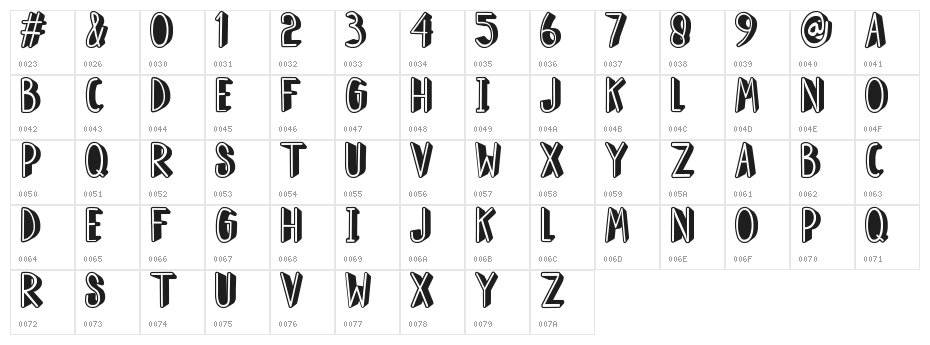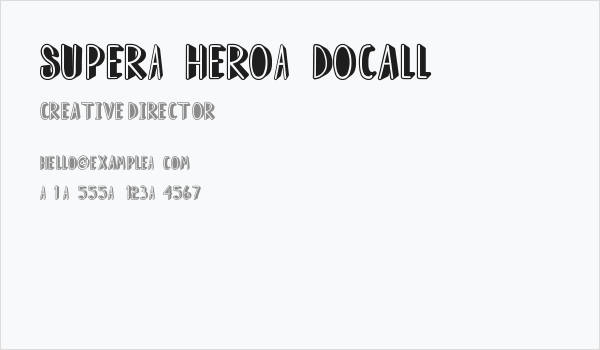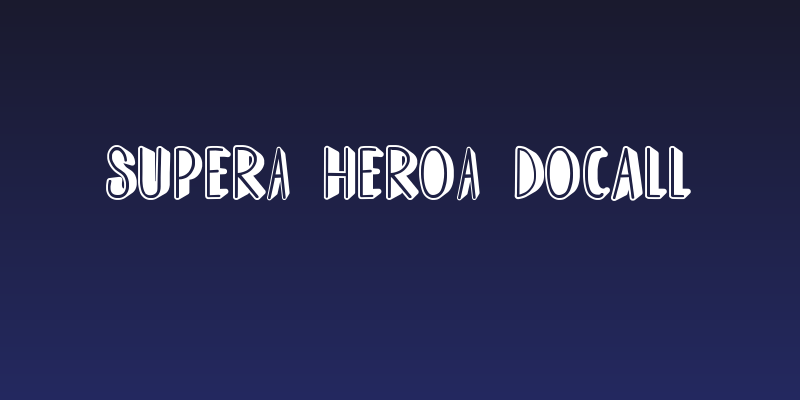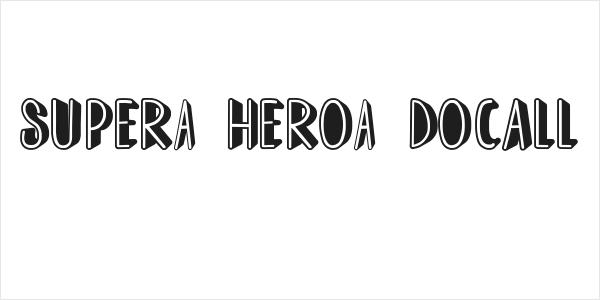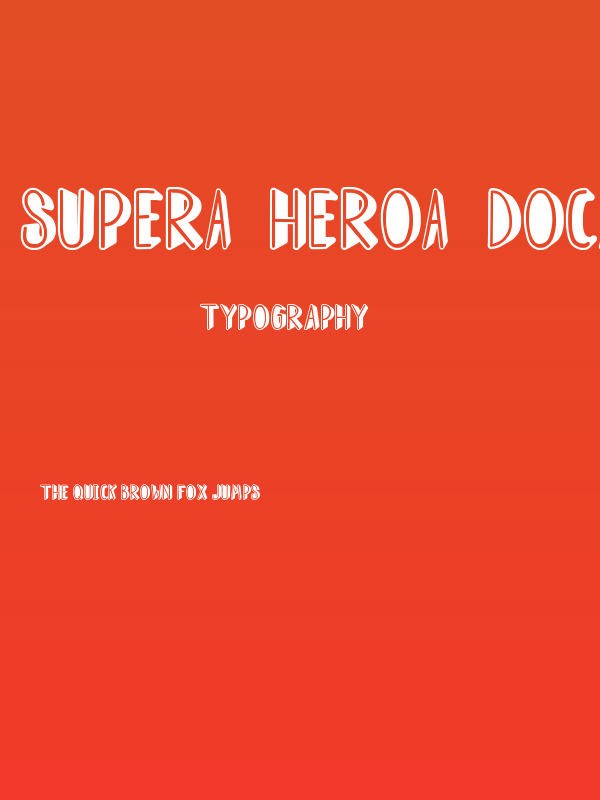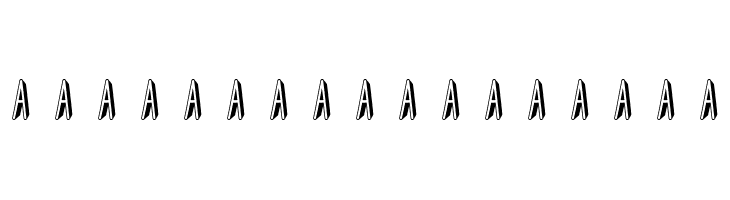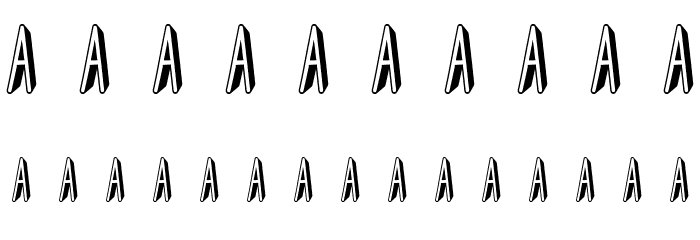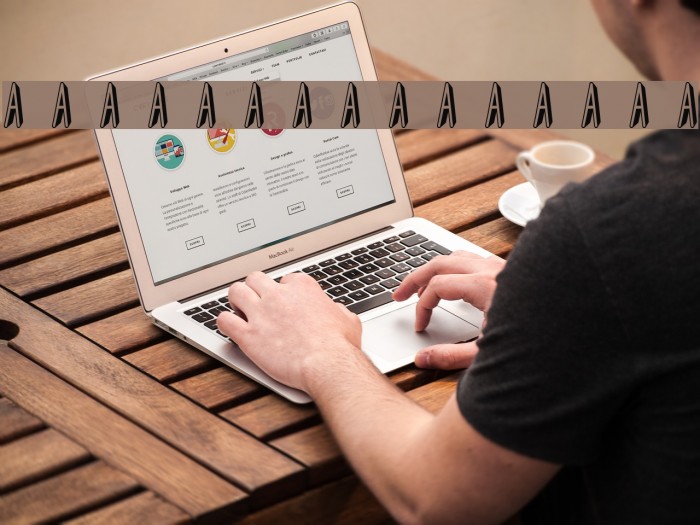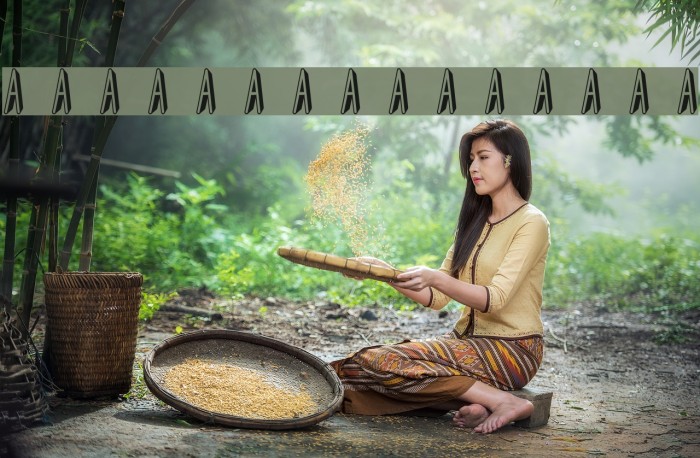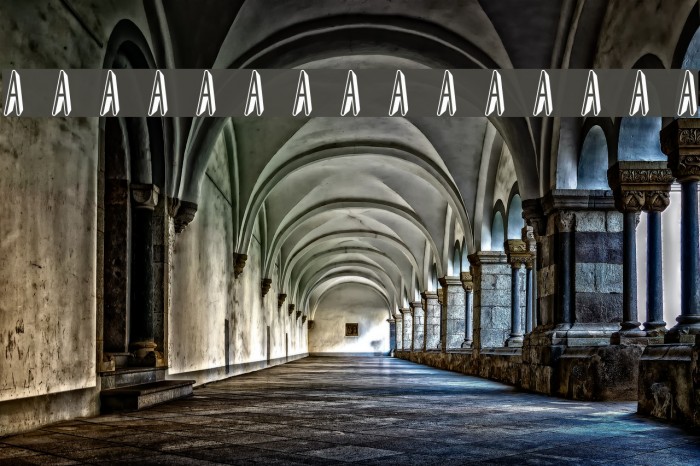
Super-Hero-Docall Font
Super-Hero-Docall Description
This font features a bold and dynamic style, characterized by a three-dimensional effect that gives each letter a sense of depth and movement. The letters are crafted with a strong, angular design, emphasizing sharp edges and a slightly italicized posture. The black shadowing adds to the dramatic appearance, making it stand out prominently against lighter backgrounds. This font is ideal for creating a powerful visual impact, suitable for titles or branding that requires a superhero-like aesthetic.
| Proposed Projects | Ideal for comic book titles, superhero-themed posters, branding, and logos that require a bold and impactful presence. |